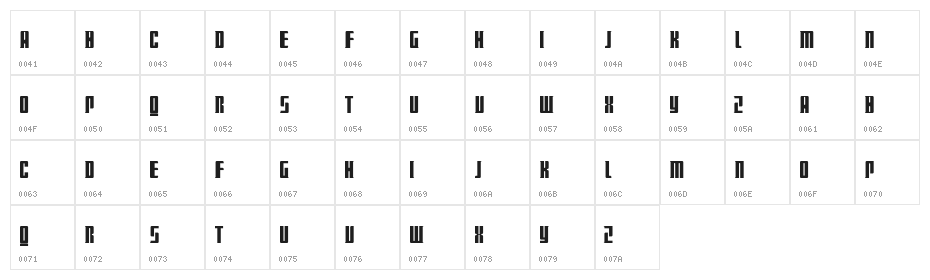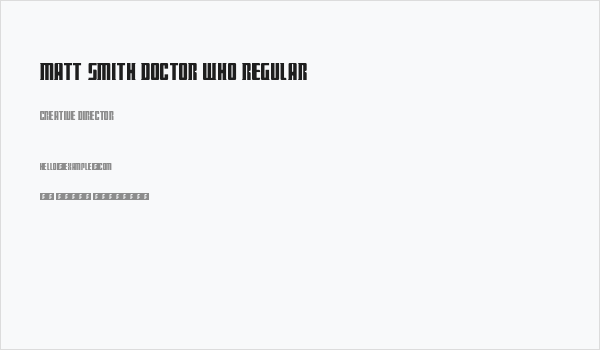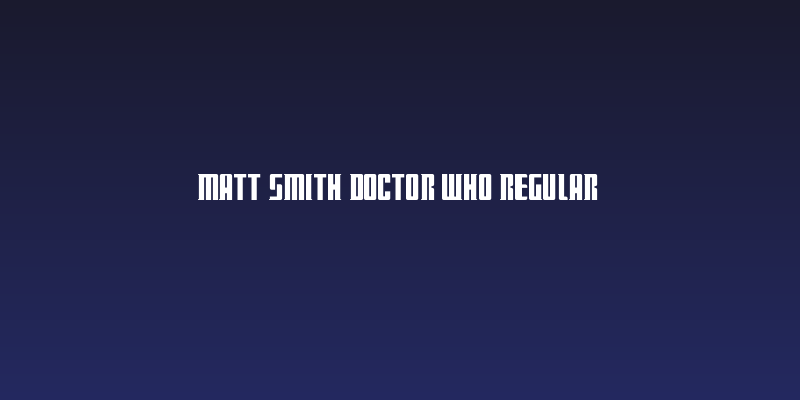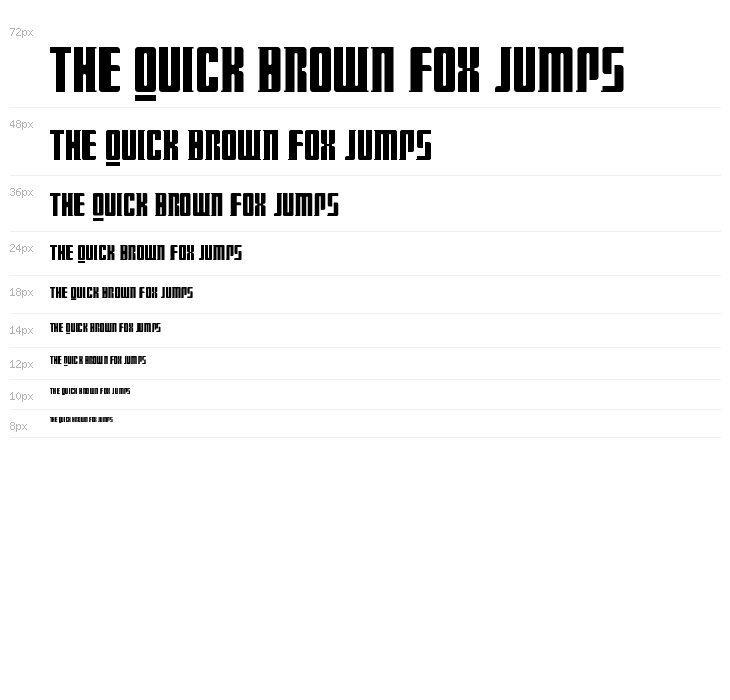
Matt Smith Doctor Who Regular Font
Matt Smith Doctor Who Regular Description
This font features a bold, geometric design with strong, angular lines and a futuristic aesthetic. The uppercase letters are tall and narrow, creating a striking and modern appearance. The lowercase letters maintain the same angular style, ensuring consistency throughout the typeface. The numbers and special characters are designed with the same boldness and geometric precision, making them stand out. This font is highly legible and impactful, suitable for making a strong visual statement.
| Proposed Projects | Ideal for science fiction themes, technology branding, posters, and video game titles. |